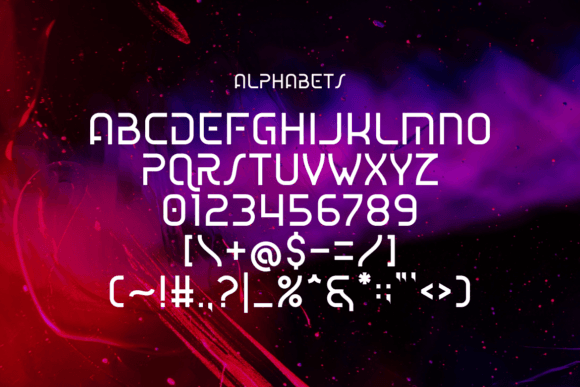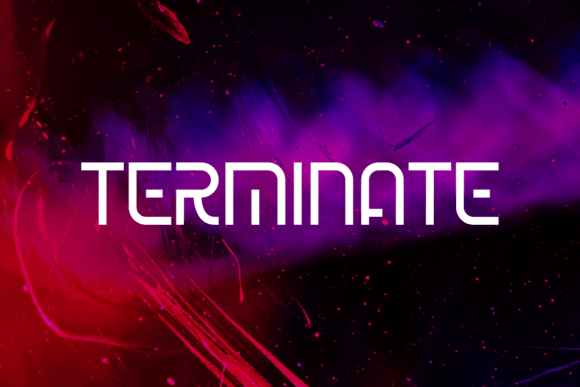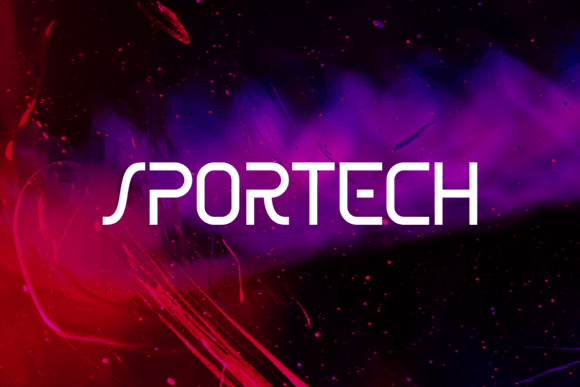
Discover the Futuristic Style of El Greda Font
In the realm of typography, fonts play a crucial role in conveying the message and aesthetic of a brand or product. For those in search of a modern, edgy look that screams technology and innovation, the El Greda font is an excellent choice. This techno-type font, characterized by its unique combination with chunks of letters that can be modified for sharper characters, is not only perfect for tech-related products but also for vibrant party music genres, automotive brands, and hardware and software manufacturers.
What is El Greda Font?
El Greda is a distinctive font that merges techno-style typography with customizable chunks of letters. This feature allows designers to tweak and adjust the font to better suit their project’s needs, making characters appear sharper and more defined. The versatility of El Greda makes it a valuable asset for creatives working on projects that demand a modern and cutting-edge visual identity.
Ideal Uses for El Greda Font
The applications of El Greda are vast and varied. Here are some of the key areas where this font truly shines:
Technology Sector
For products and brands related to today’s technology, El Greda offers a sleek and contemporary look that perfectly encapsulates innovation and forward-thinking. Whether it’s a new smartphone app, a software solution, or a gadget, this font ensures that your branding communicates the latest in tech.
Music and Entertainment
Specifically, within the music industry, El Greda finds its groove in party music genres and music clubs. The font’s vibrant and dynamic style complements the energetic and lively atmosphere of nightclubs, festivals, and music events, making it an ideal choice for branding, flyers, and promotional materials.
Automotive World
The automotive sector, with its emphasis on innovation, speed, and cutting-edge technology, is another area where El Greda excels. Car manufacturers, racing teams, and automotive accessory brands can leverage this font to convey a sense of power, speed, and modernity.
Hardware and Software Manufacturers
For companies involved in the production of hardware and software, El Greda provides a typographic solution that resonates with the industry’s themes of innovation and technological advancement. It helps in creating a brand image that is robust, reliable, and at the forefront of technology.
Why Choose El Greda?
Choosing El Greda for your design project comes with several advantages:
• Versatility: Its unique design allows for modifications, making it adaptable to various design needs.
• Modern Appeal: The techno-type style gives it a contemporary look that appeals to younger audiences and tech-savvy consumers.
• Customization: The ability to modify letter chunks for sharper characters offers a level of customization that can be tailored to specific branding requirements.
How to Use El Greda Effectively
To make the most out of El Greda, consider the following tips:
• Pair with Complementary Fonts: While El Greda can stand alone, pairing it with simpler fonts can enhance readability and create visual hierarchy.
• Adjust According to Context: Take advantage of its customizable features to adjust the font according to different contexts, ensuring it always looks its best.
• Consider Color Schemes: The font’s impact can be further amplified by choosing color schemes that align with the brand’s identity and the project’s theme.
Font Name El Greda Font
El Greda font stands out as a modern, versatile, and impactful typographic choice for designers and crafters. Its unique blend of techno-style typography with customizable elements makes it suitable for a wide range of applications, from technology and automotive to music and entertainment. By incorporating El Greda into your design projects, you can ensure a fresh, contemporary look that captures the essence of innovation and dynamism.